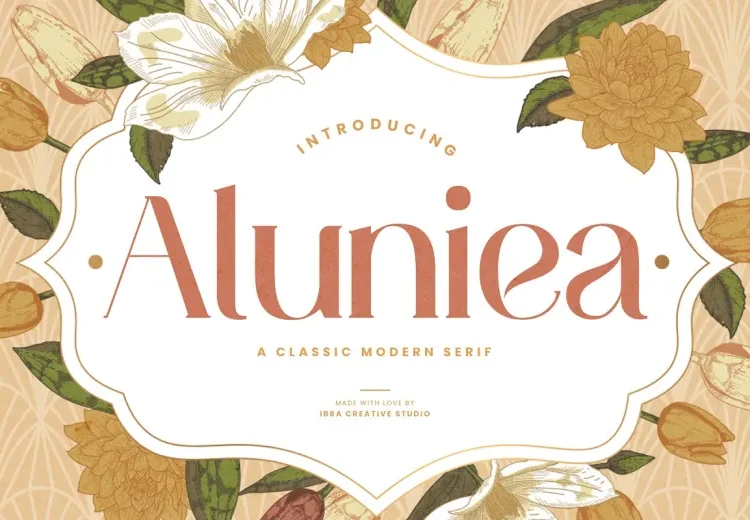
Aluniea Font
Aluniea is a timeless contemporary serif typeface that seamlessly blends classic elegance with modern design sensibilities. Its well-balanced letterforms, graceful strokes, and intricate details make Aluniea both sophisticated and adaptable, perfect for a wide range of design applications. Whether you’re crafting high-end branding materials, elegant invitations, or stylish editorial layouts, Aluniea offers a touch of refinement and versatility that enhances every project.
The font’s harmonious balance of traditional and modern elements ensures it stands out in various contexts, from formal documents to creative design work. Its exquisite detailing and refined strokes bring a sense of luxury and professionalism to any project, making Aluniea an invaluable addition to any designer’s toolkit.